1. Introduction
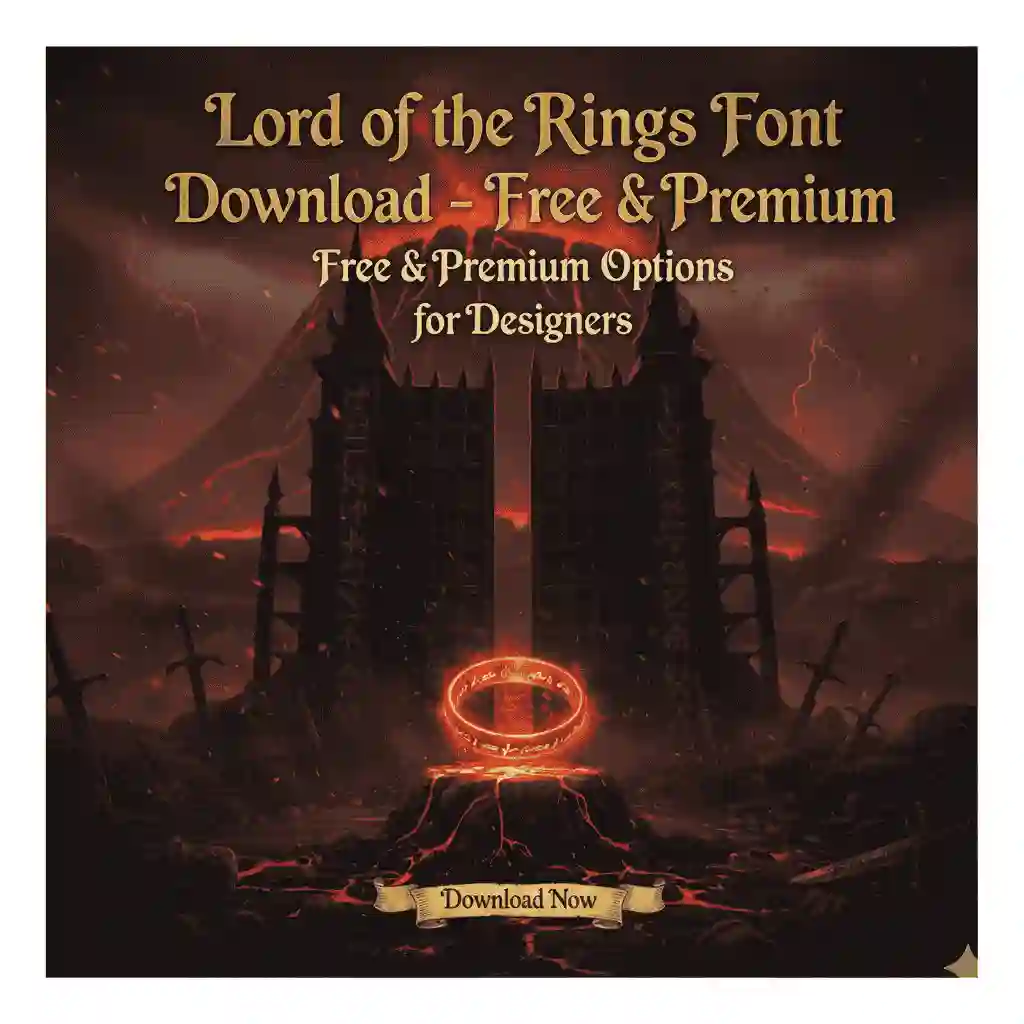
Typography plays a crucial role in design, and movie-inspired fonts are often in high demand. One of the most iconic examples is the Lord of the Rings font, which captures the magical and medieval essence of J.R.R. Tolkien’s world. If you’re searching for a Lord of the Rings font download, you’re not alone—this keyword is one of the most searched by fans, graphic designers, and fantasy enthusiasts.
2. What Is the Lord of the Rings Font?
The official font used in the Lord of the Rings movie titles is called Ringbearer, a typeface created by a fan designer. It features sharp, medieval-inspired strokes that perfectly resemble the fantasy atmosphere of Middle-earth.
Additionally, Tolkien’s world is full of scripts such as Elvish Tengwar and Dwarvish runes, which are often used to add authentic fantasy details. Designers and fans often seek these fonts to bring their projects closer to the magical aesthetic of the films and books.
3. Why Designers Love This Fantasy Typeface
There are several reasons why the Lord of the Rings font download is popular:
- Fantasy appeal: Perfect for magical, medieval, or mythological projects.
- Cultural recognition: Fans instantly connect the typography with the LOTR franchise.
- Versatile usage: Works well for posters, invitations, book covers, or gaming content.
- Unique style: Offers a dramatic and ornamental look that stands out compared to modern minimalist fonts.
If you’re creating a design that needs to transport viewers into a fantasy world, the LOTR-inspired typeface is an excellent choice.
4. Popular Free Options for Lord of the Rings Font Download
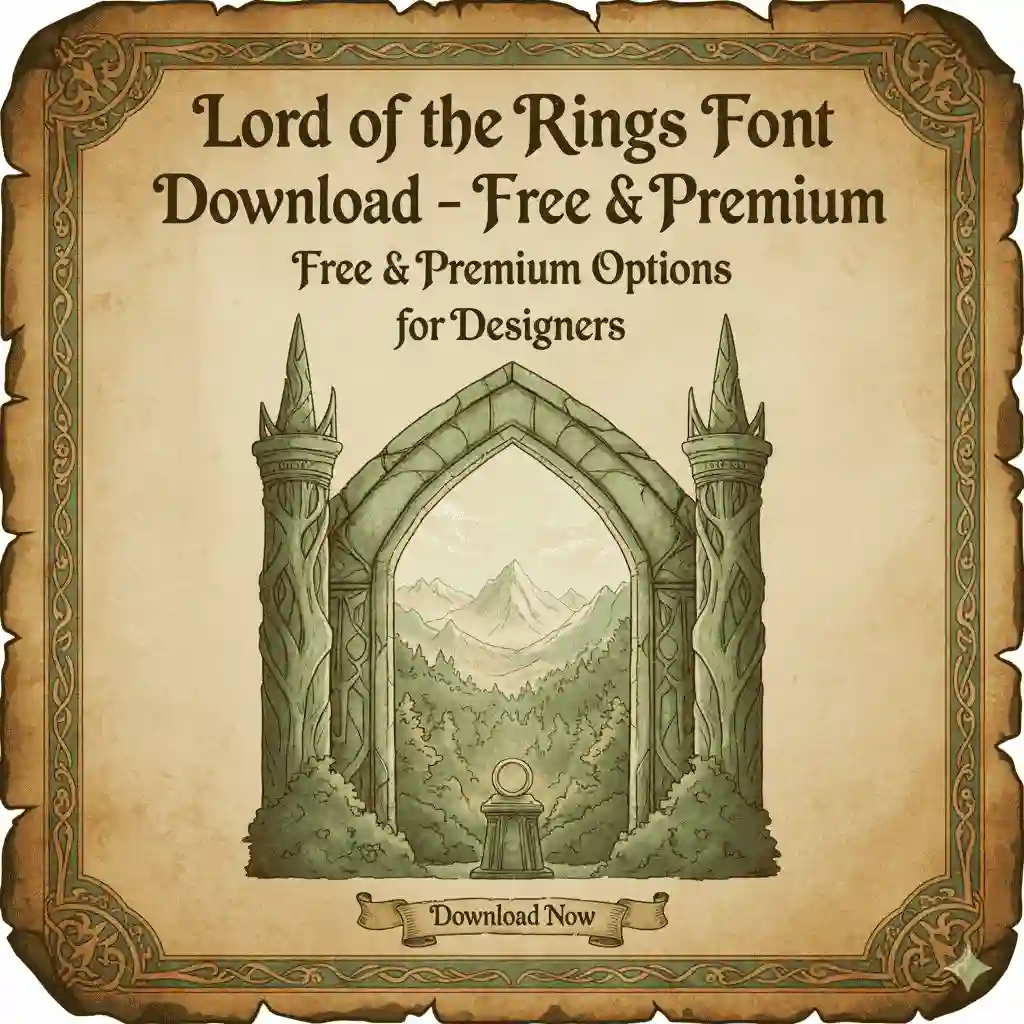
Several websites offer free variations of LOTR-inspired fonts. For example:
- Ringbearer Font – Perhaps the closest fan-made version to the original movie title font.
- Tengwar Annatar – Inspired by Tolkien’s Elvish script.
- Party Business Font – A playful fantasy-style font named after a hobbit tradition.
5. Premium Alternatives Inspired by LOTR
6. How to Use the Font in Your Projects
Once you’ve completed your Lord of the Rings font download, here are some creative ways to apply it:
- Movie posters & fan art – Recreate the epic LOTR vibe.
- Book covers – Ideal for fantasy novels or role-playing guides.
- Invitations & event cards – Perfect for weddings, birthdays, or fantasy-themed parties.
- Gaming projects – RPGs, board games, or fantasy apps.
- Branding – For businesses related to books, entertainment, or collectibles.
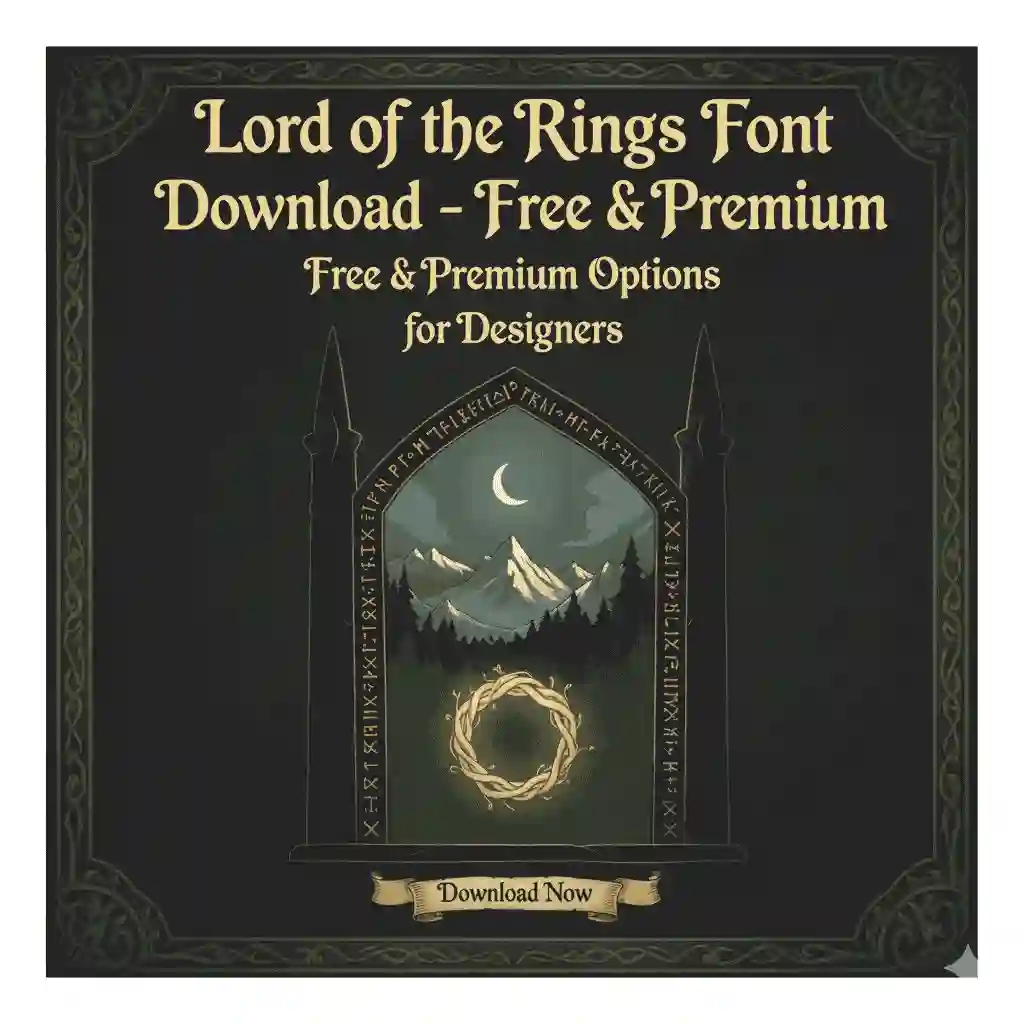
If you’re looking for premium fonts inspired by fantasy aesthetics, check out these selections from EdricStudio:
- Back Dream Font – Inspired by Elvish elegance, perfect for book titles.
- The Empire Font – A bold medieval look ideal for posters and logos.
- Bilshen Font – A decorative serif font with fantasy flair.
- Magic Light Font – Great for magical and mythical branding projects.
Each of these fonts is crafted with designers in mind, offering commercial licenses, professional quality, and unique character sets that elevate your project.
8. Conclusion
The Lord of the Rings font download remains one of the most sought-after typography searches because of its strong cultural impact and timeless fantasy appeal. Whether you choose a free option like Ringbearer or invest in premium fonts from EdricStudio, you’ll gain access to the magic of Middle-earth in your designs.